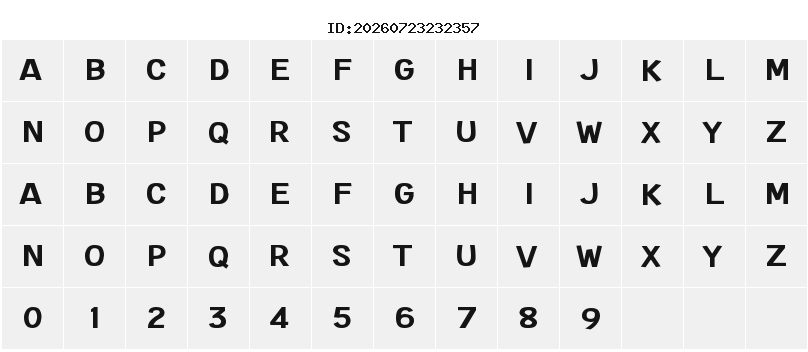
• Font Name: Extended Play
About Extended Play.ttf
Extended Play.ttf is a modern, elegant sans-serif font designed for ultimate readability and visual harmony. Perfect for branding, headlines, web design, and print materials.